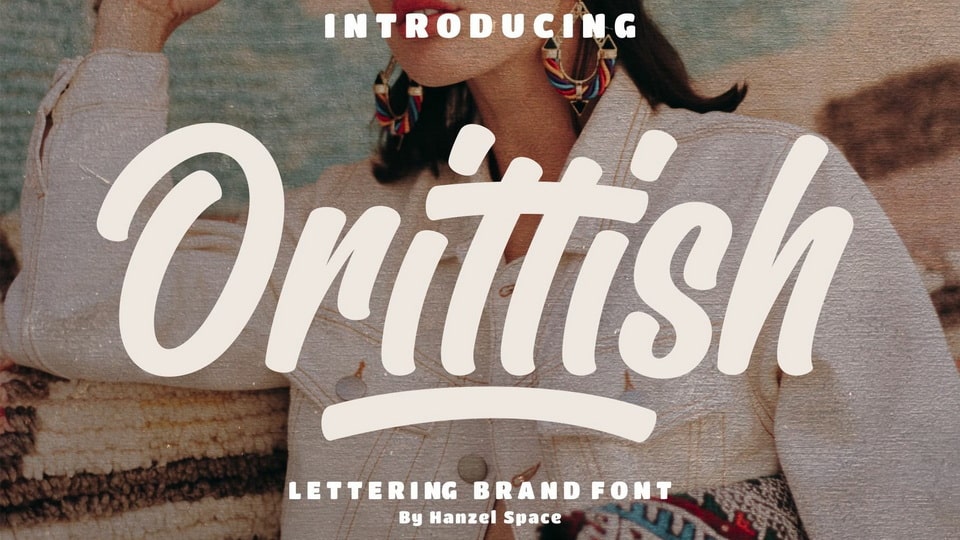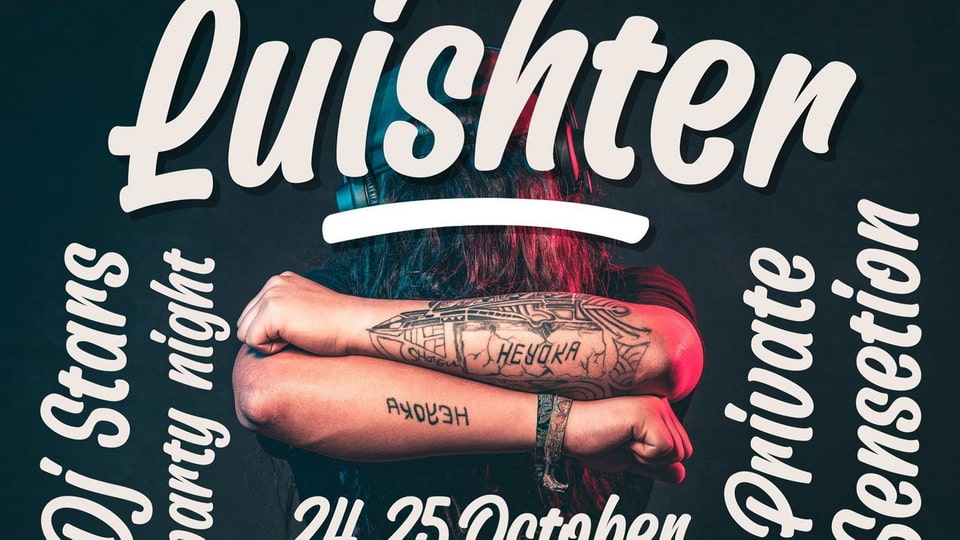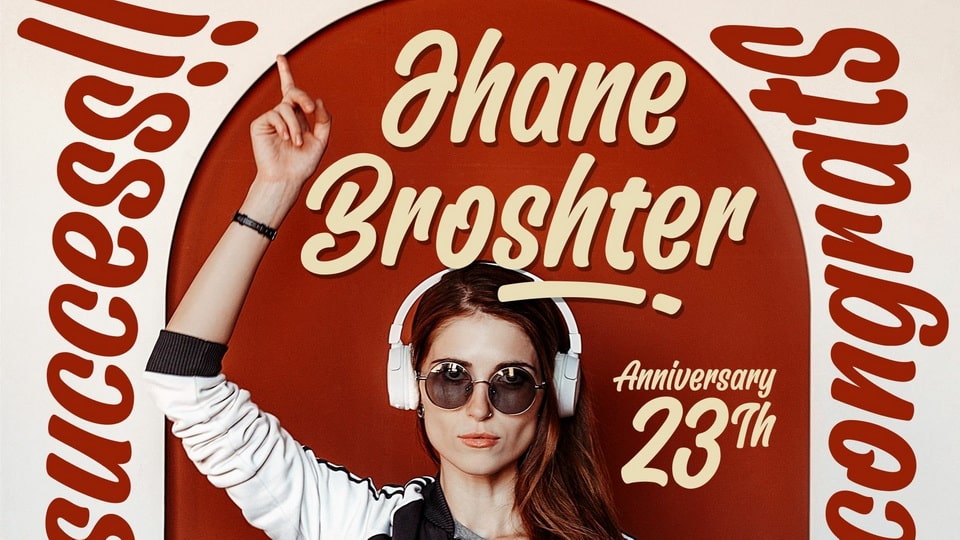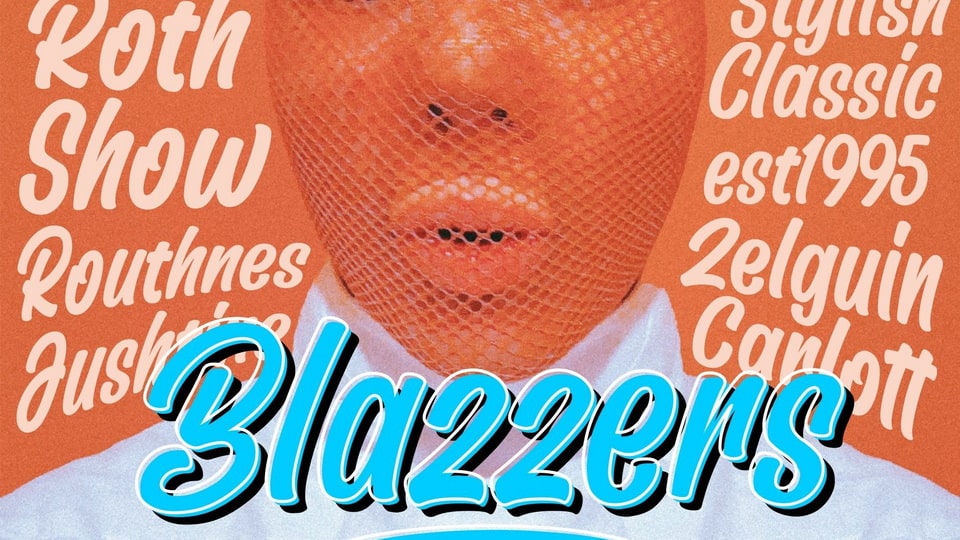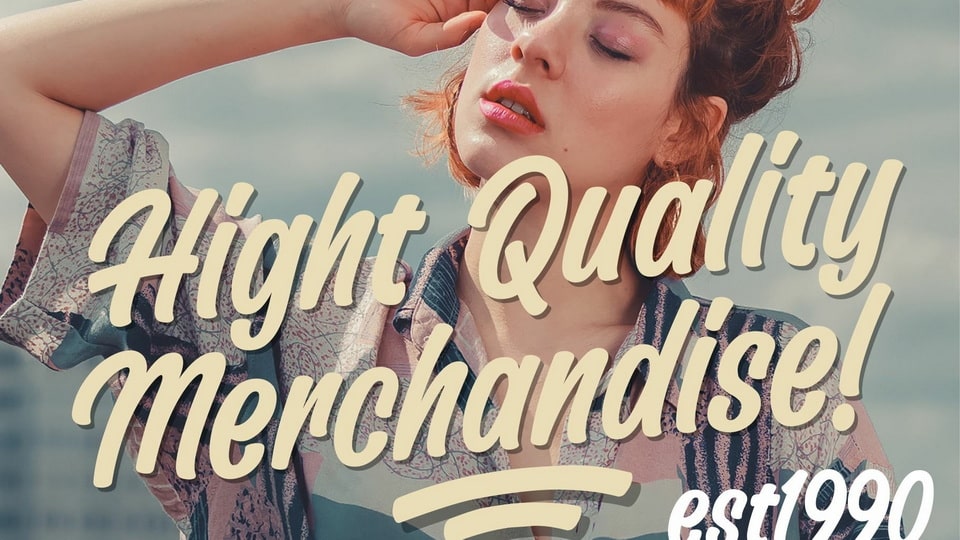
Orittish is a lettering brush font made for your company’s branding needs. The specific of this font is that it has characters that are not connected to each other, we deliberately made it that way so that it is more flexible when it will be paired in a product branding for your business.
Orittish is very best choice fonts for: quotes, posters, logos, print ads, digital ads, promotion product, video banner, etc.